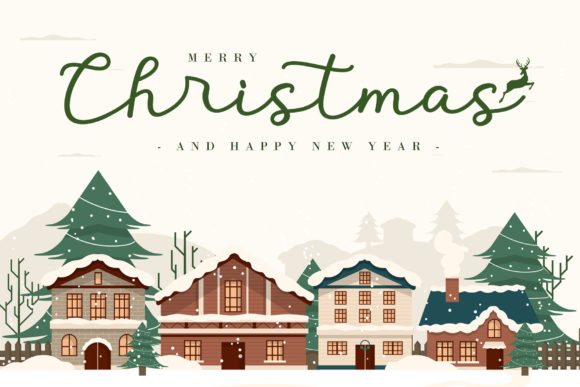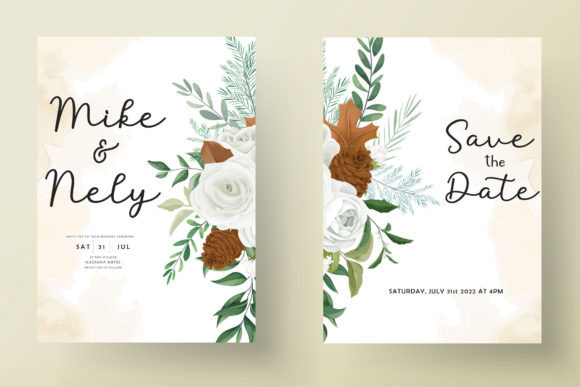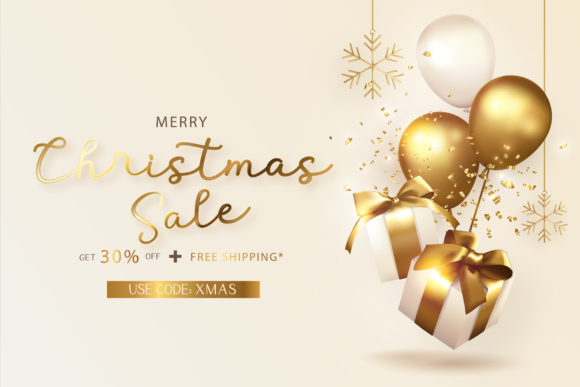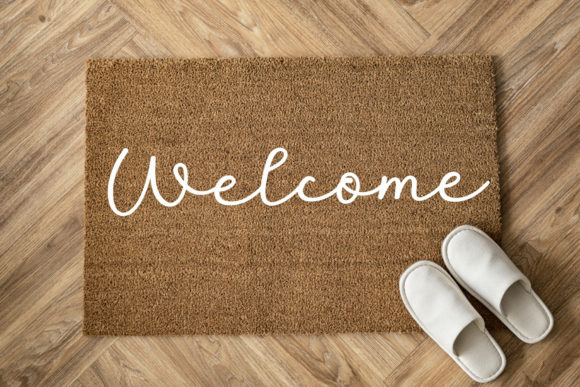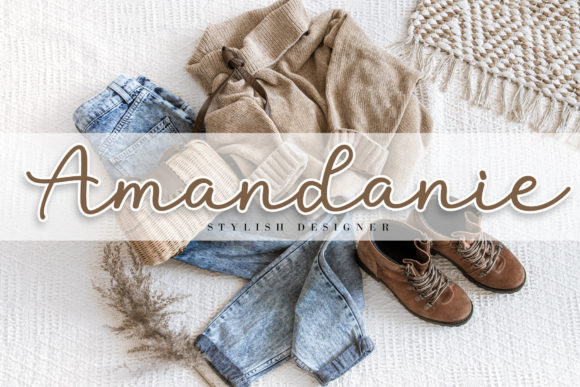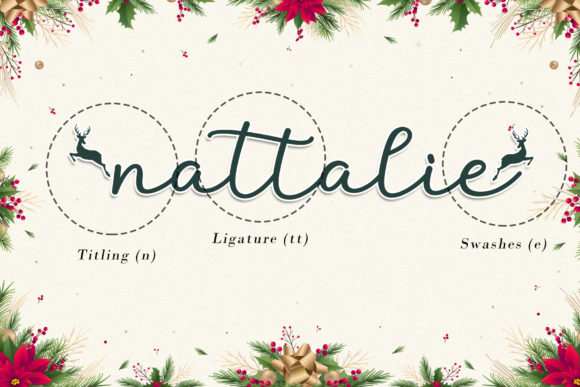
Introduction to Christmas Glad Font
Christmas Glad is an elegant and dainty handwritten font that features sweet and delicate swashes.
Key Features of Christmas Glad Font